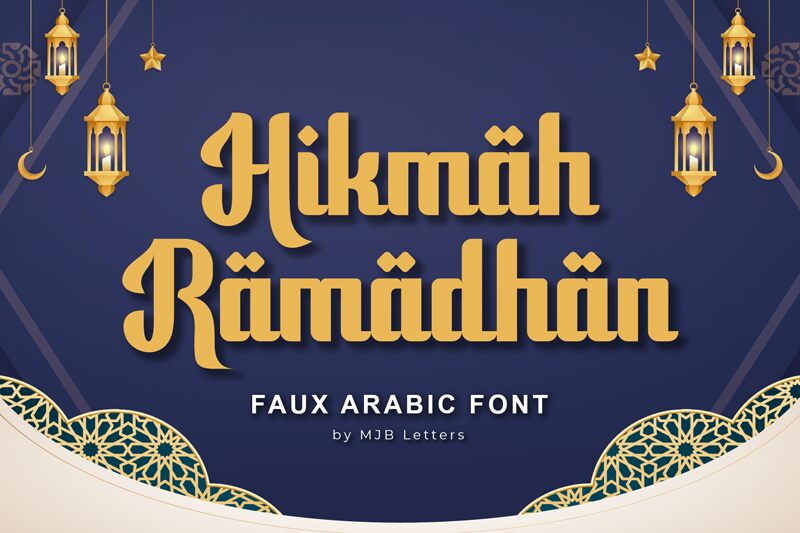
Hikmah Ramadhan font by MJB Letters is a free font inspired by foreign typography and Arabic visual styles. It exhibits a remarkable vision into traditional lettering with a modern take on retro design principles. The overall intense character of the font is mainly established by the geometric influence alongside the numerous decorative additions across its various letters. Hikmah Ramadhan is a powerful typographic tool that evokes a classical cultural atmosphere while demonstrating great style in its form.
Equipped with cultural inspiration and modernized visual quality, Hikmah Ramadhan can creatively support branding projects in a wide range of contexts including publications, poster designs, event promotional advertisements, and much more. The font’s attaching historical cultural style is marked with elegance which delivers an ideal aesthetic atmosphere for branding and illustration projects. Others can stand to benefit from this excellent font by using it to instantly evoke a sense of culture in modern typographic designs.